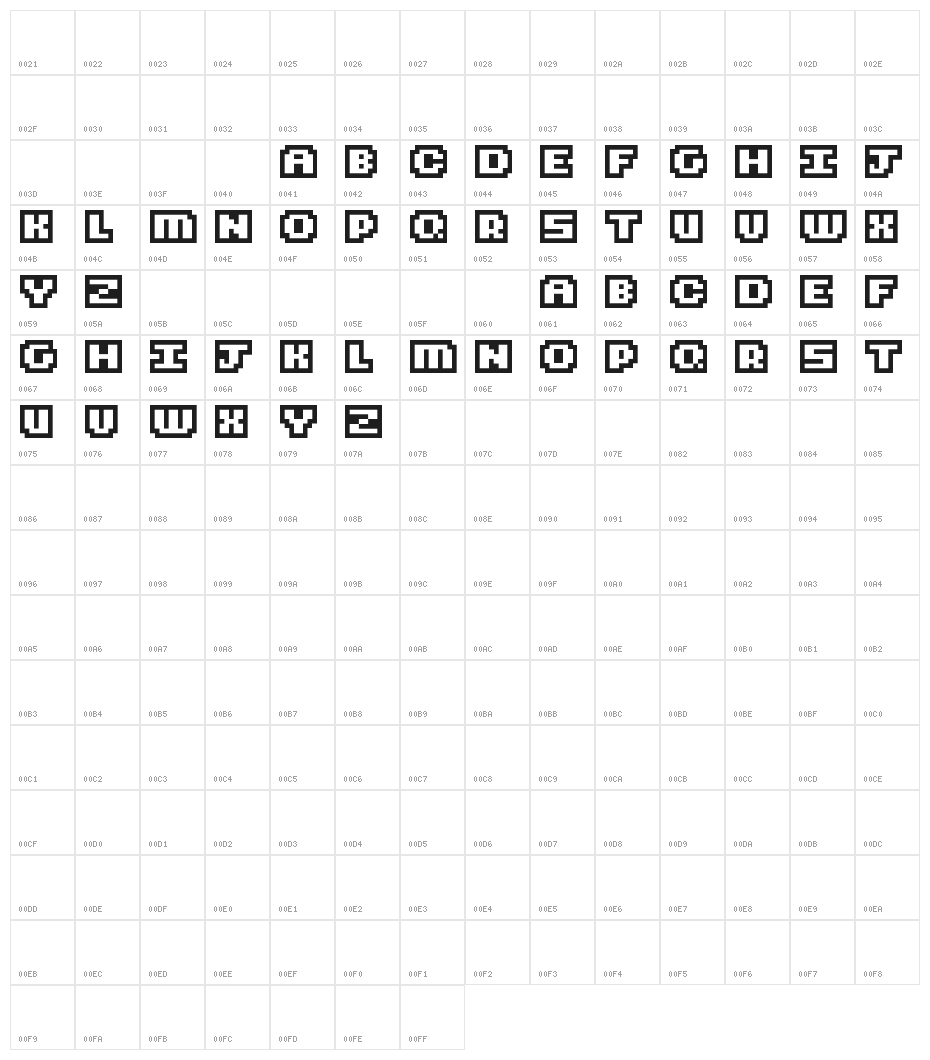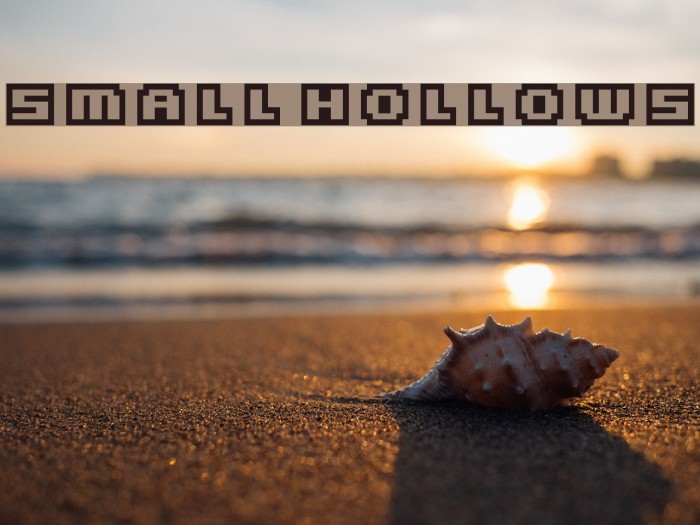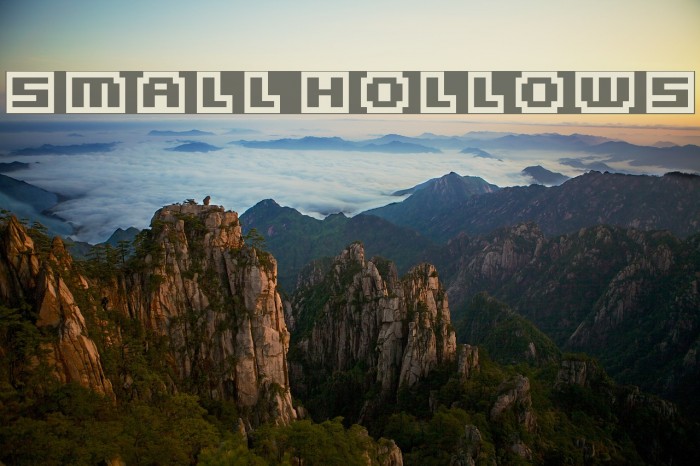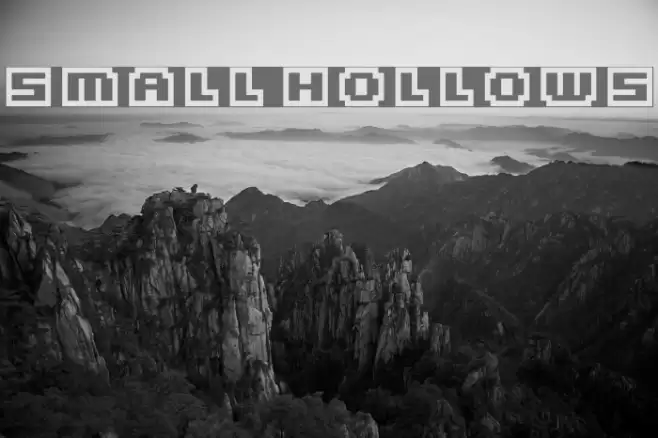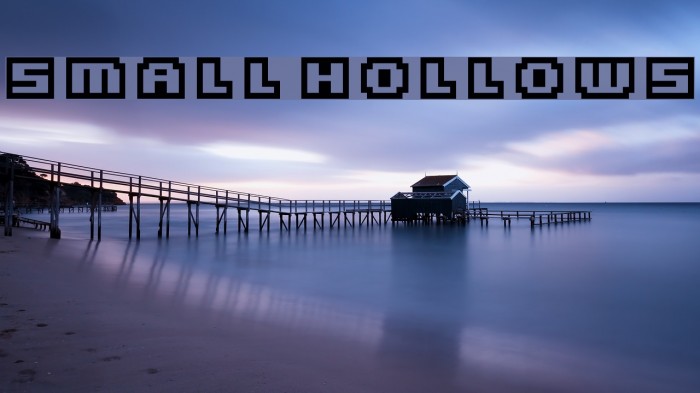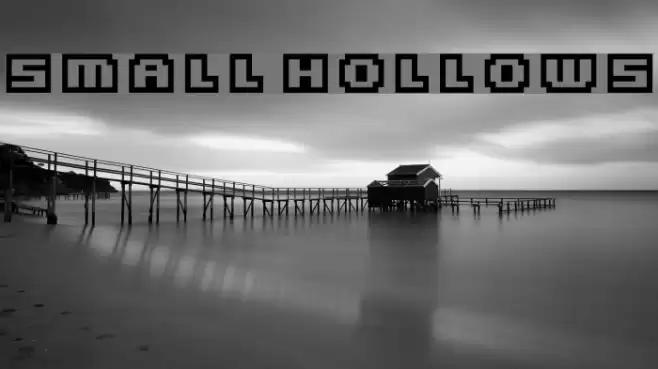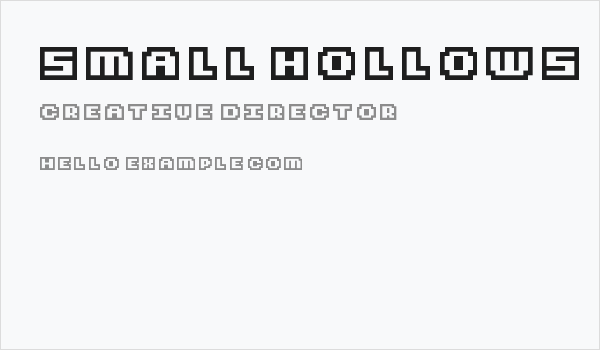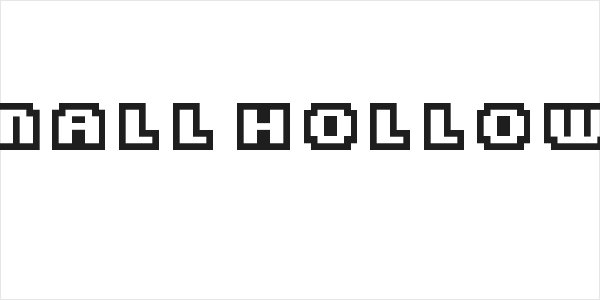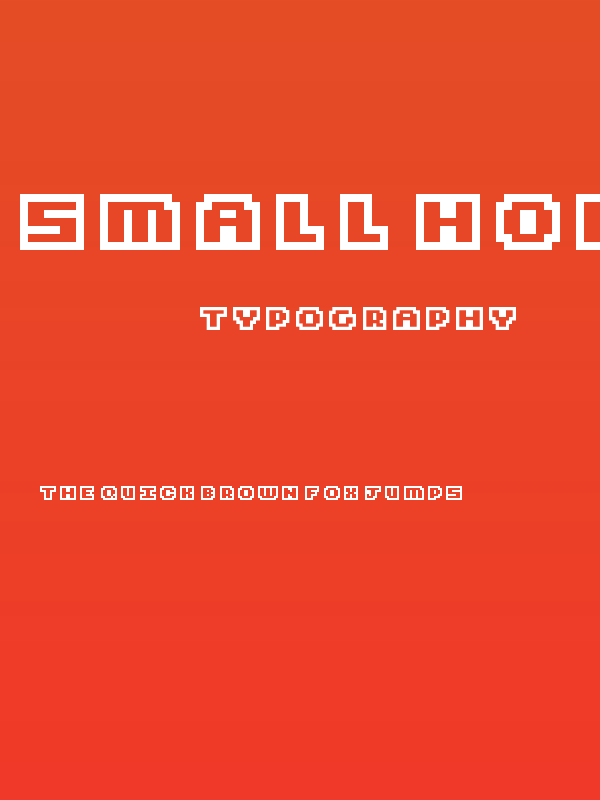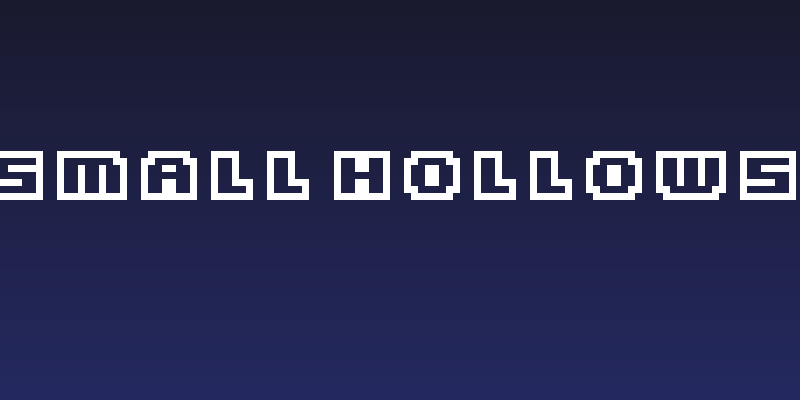
Small Hollows Font
Small Hollows Description
This font features a bold, pixelated style with hollow interiors, reminiscent of classic 8-bit video game graphics. Each character is constructed with a blocky, geometric form, giving it a distinctly retro and digital feel. The uniformity in the design creates a cohesive look, while the hollow centers add a unique twist, making the letters stand out. The font maintains a consistent weight and width across all characters, ensuring readability and a strong visual impact. Its playful yet structured appearance makes it ideal for projects that aim to evoke nostalgia or a tech-savvy aesthetic.
| Proposed Projects | Video game graphics, tech-themed posters, retro-style branding, digital art projects, and creative headlines. |